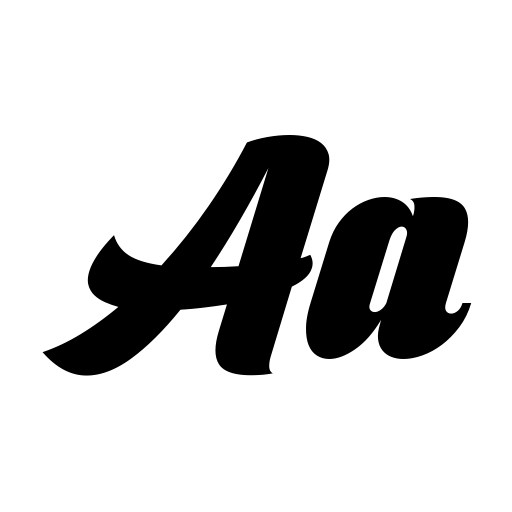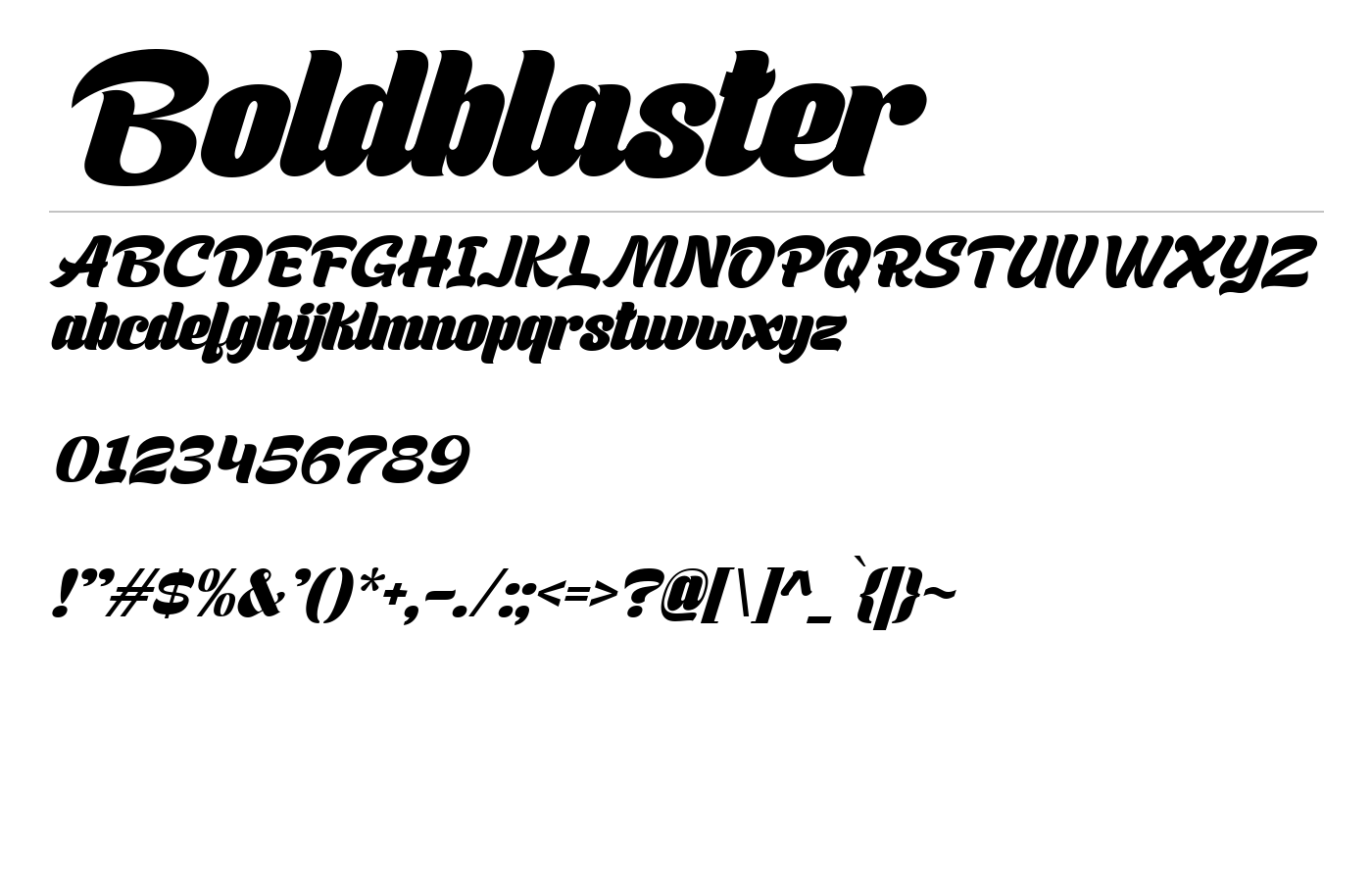
Boldblaster is a bold, script-style font with a strong, dynamic presence and slightly condensed letterforms. Its smooth, rounded strokes and italic slant give it an energetic, retro vibe, making it ideal for attention-grabbing headlines, logos, and branding with a fun yet confident personality. This font works well in designs that aim to combine a sense of boldness and playfulness, especially in sports, fashion, or entertainment contexts.
Boldblaster Font